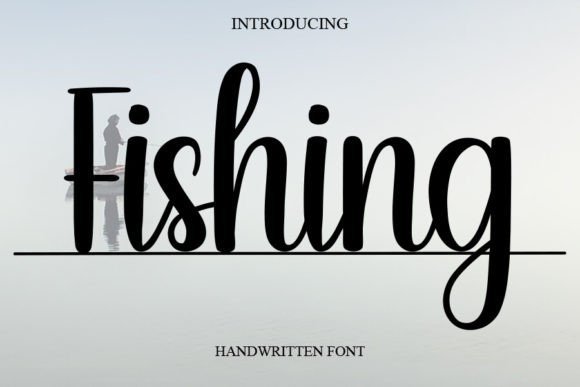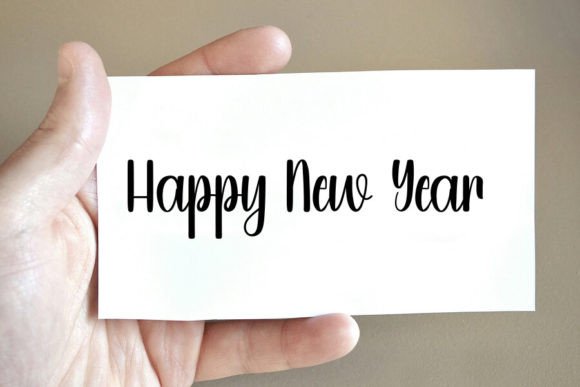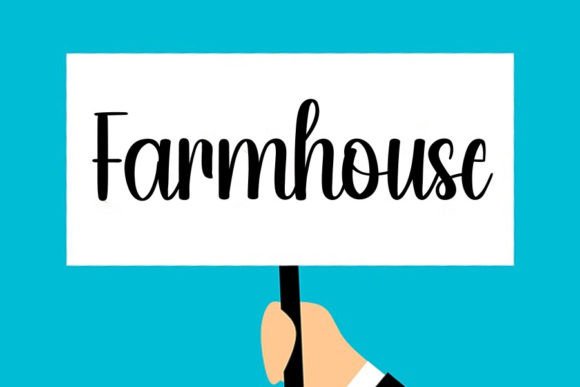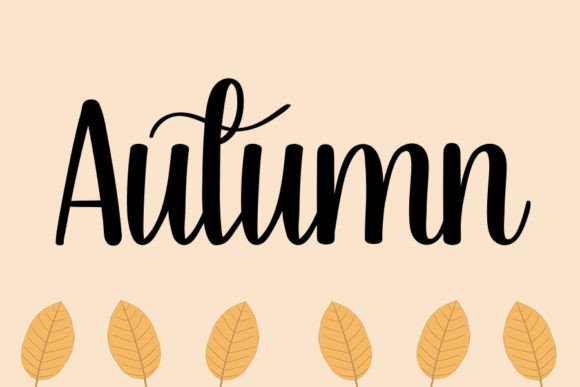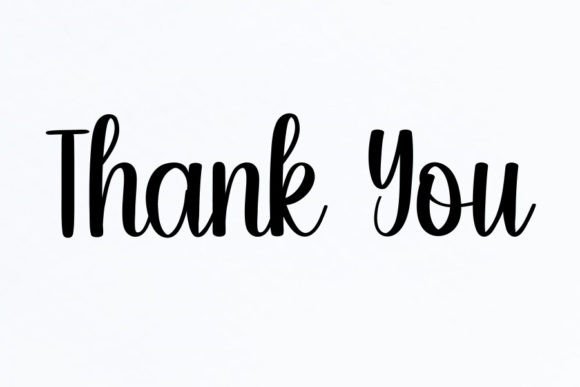
Fishing for the Perfect Font
Who else remembers the thrill of rummaging through their grandmother’s attic, unearthing a treasure trove of old photographs and dusty craft supplies? For many creatives, this moment sparks a sense of nostalgia and inspiration, fueling their passion for making something new and special. As we dive into the world of typography, we’re on the hunt for the perfect font – one that’s as charming as it is versatile.
Enter the Fishing Font, a delightful handwritten font designed to bring a touch of whimsy to your designs. Whether you’re crafting a heartfelt card, creating a presentation, or working on a digital project, this font is sure to become your go-to companion. Its friendly and approachable nature makes it an invaluable asset for designers, allowing them to add a personal touch to their work.
Fishing Font Key Features
- Font Style: A unique, hand-drawn fishing-themed font with a playful and nostalgic feel.
- Size: Offers a range of font sizes, from 12pt to 72pt, making it suitable for various design applications.
- Resolution: Designed for high-resolution displays, ensuring crisp and clear text at resolutions up to 300 DPI.
- Unique Characteristics: Features custom-designed fishing-related glyphs, such as fish, hooks, and nets, adding a touch of whimsy to any design.
Fishing Font Review
I recently had the chance to try out the Fishing Font and here’s my honest take on it.
- The font’s unique design inspired by fishing nets and tackle is quite visually appealing.
- It’s highly legible, even at small font sizes, making it suitable for a wide range of applications.
- The font’s weight and style options provide a good balance between modern and classic feels.
- The font’s limited language support might be a concern for multilingual projects.
- It lacks a true italic version, which could be a drawback for designers who prefer to use italics for emphasis.
- The font’s bold weight might be too thick for some designs, so it’s essential to use it sparingly.
Overall, I think Fishing Font is a great choice for designers looking for a unique and legible font. While it has some limitations, its strengths make it a valuable addition to any design toolkit.
For a more realistic fishing-themed design, use the Fishing Font in conjunction with fishing-related graphics and colors.
For a more professional-looking design, use the Fishing Font in conjunction with advanced design techniques and effects.
For a more engaging presentation or document, use the Fishing Font in conjunction with relevant images and graphics.
Tips for Getting the Most Out of Fishing Font
Use Fishing Font in combination with other fishing-related elements, such as fishing nets, hooks, or boats.
Experiment with different font sizes and styles to create a visually appealing design.
Use Fishing Font in conjunction with other fonts to create a unique and eye-catching design.
Fishing Font is ideal for:
Designing fishing-related products, such as t-shirts, posters, or brochures.
Creating fishing-themed presentations or documents.
Adding a touch of whimsy to your design with a playful fishing font.
Great Vibes is a modern, cursive script font perfect for creating a relaxed and friendly atmosphere in your designs. It’s ideal for use in invitations, quotes, and social media graphics. Great Vibes is a more refined and elegant alternative to Fishing Font, with a softer and more rounded feel.
Playfair Display is an elegant, high-end font perfect for creating luxurious and sophisticated designs. It’s ideal for use in branding, magazines, and high-end marketing materials. Playfair Display is a more formal and luxurious alternative to Fishing Font, with a more dramatic and ornate feel.
Carolyna Pro is a modern, elegant script font perfect for creating a touch of sophistication in your designs. It’s ideal for use in branding, invitations, and social media graphics. Carolyna Pro is a more refined and versatile alternative to Fishing Font, with a softer and more rounded feel.
Yes, Fishing Font supports Unicode characters and special characters, including accented letters, currency symbols, and mathematical operators. This makes it suitable for use in a wide range of languages and applications.